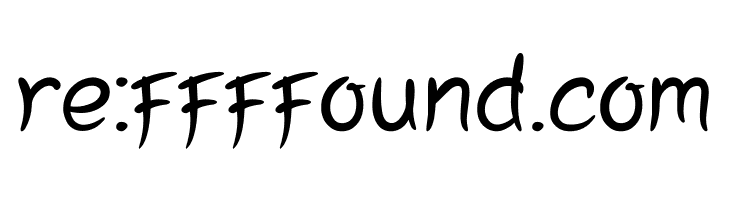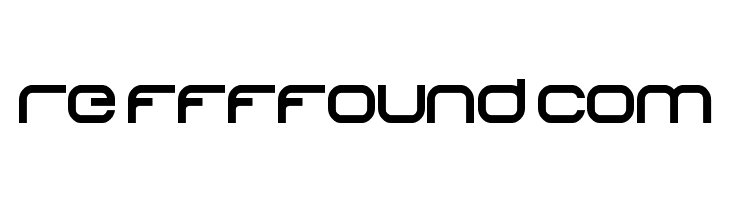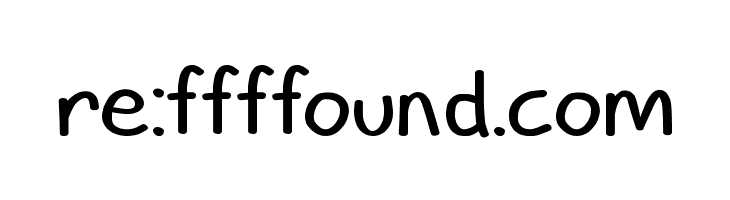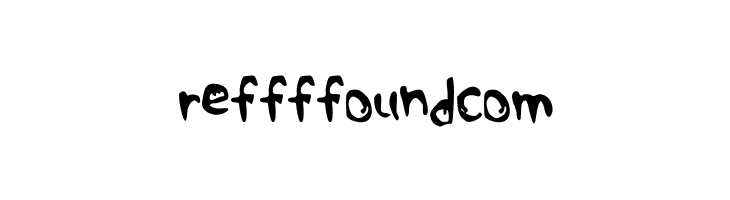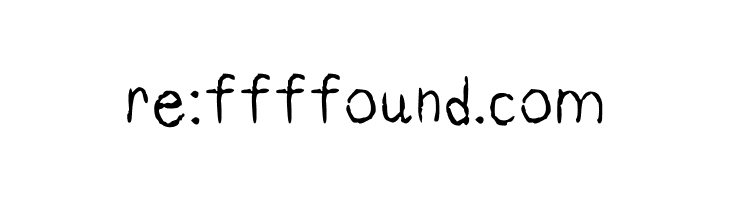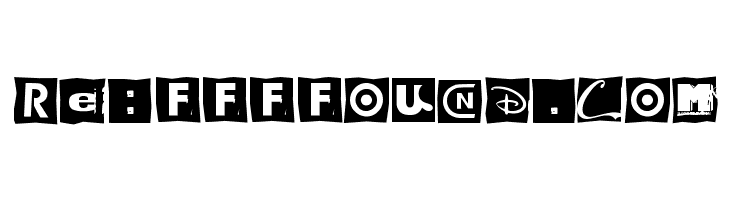
Fonts added on February 12, 2016 (7)
Fonts added on February 12, 2016
Begok Font
A sleek, modern font with a futuristic and geometric design.
Brandsom Font
A bold, eclectic font with a ransom note style, featuring diverse character designs.
Cleavin Font
Font by Vinay Suresh
A playful, whimsical handwritten font with flowing, cursive-like strokes.
DrippyMcDrip Font
A bold, dripping font with an organic, fluid style.
Peyori Font
Font by Typopey
A playful, handwritten font with dynamic strokes and a casual style.
REAPER Medium Font
A rugged, hand-drawn font with a distressed, organic appearance.
Smart Kid Font
A playful, hand-drawn font with rounded, irregular characters.